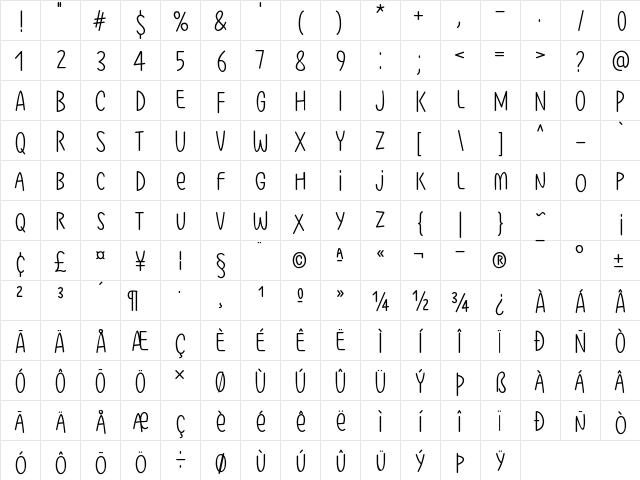
Kisah Ceritra Regular
| Foundry | 7NTypes |
| Designer | Situjuh Nazara |
Design Context for Kisah Ceritra Typeface
Kisah Ceritra is a composed and adaptable typeface that performs quietly and consistently across a wide range of design contexts.